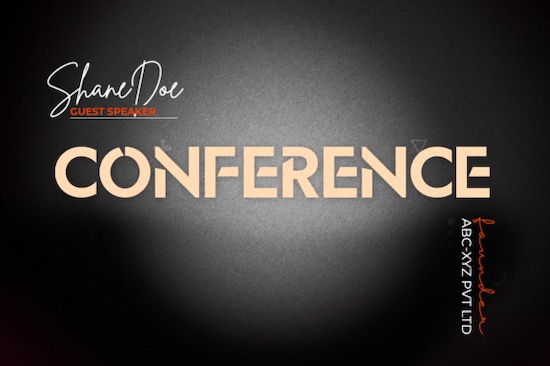
Introducing, Multiple Ranges is an elegant and incredibly Unique display font with an Interesting & appealing look. Multiple Ranges font can easily be matched to a large set of designs. Besides, this geometric sans serif font is absolutely perfect for your next creative projects like invitations, Labels, Posters, Logotype, product packaging, Apparel Design, Letterhead, headers, printed quotes, cards, and more.
Multiple Ranges Display Font